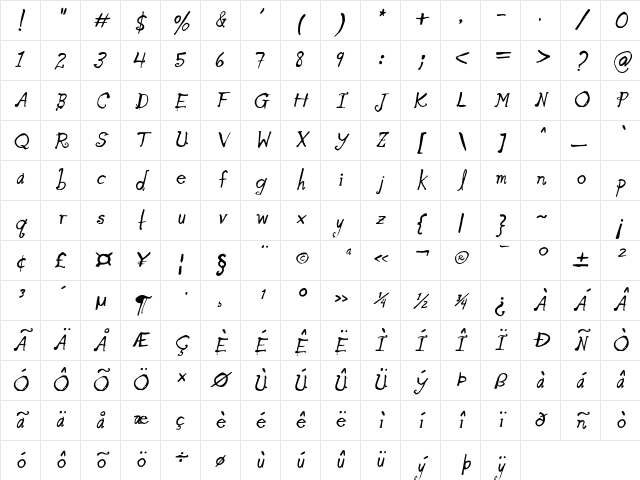
Complete Blue Goblet Oblique glyph index. Displaying only characters natively supported by Blue Goblet Oblique font.
Blue Goblet Oblique is a composed and adaptable typeface that performs quietly and consistently across a wide range of design contexts. The slanted form adds forward momentum and visual energy.
Pro Tip: Use Blue Goblet Oblique for emphasis, pull quotes, and subheadings where its slanted energy can add rhythm to the layout.